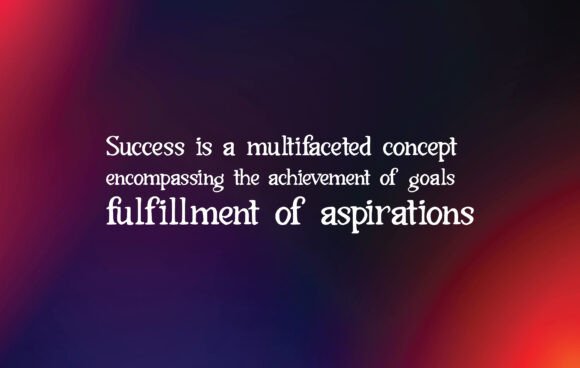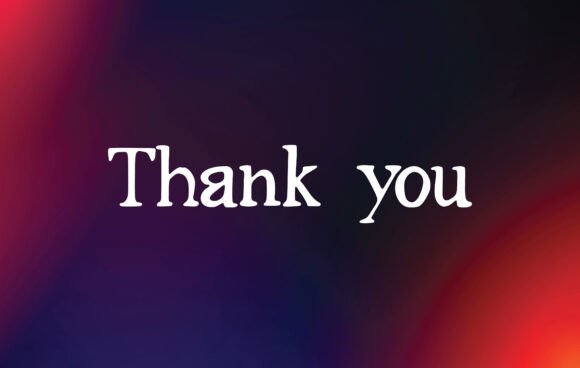
Introduction to Louisa Font
Louisa is a lovely and beautiful handwritten font.
Key Features of Louisa Font
Why Choose Louisa Font?
Louisa Font offers exceptional quality and versatility, making it a valuable addition to your design toolkit. Whether you’re creating for personal projects or commercial use, Louisa Font delivers professional results.